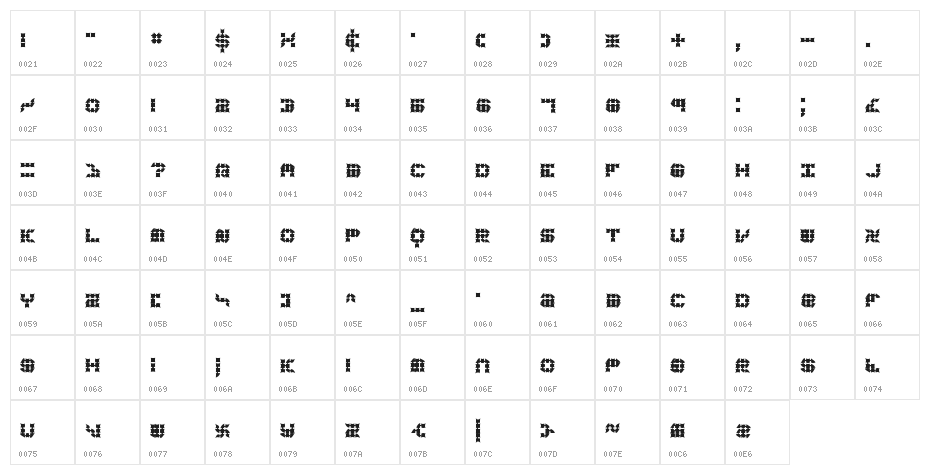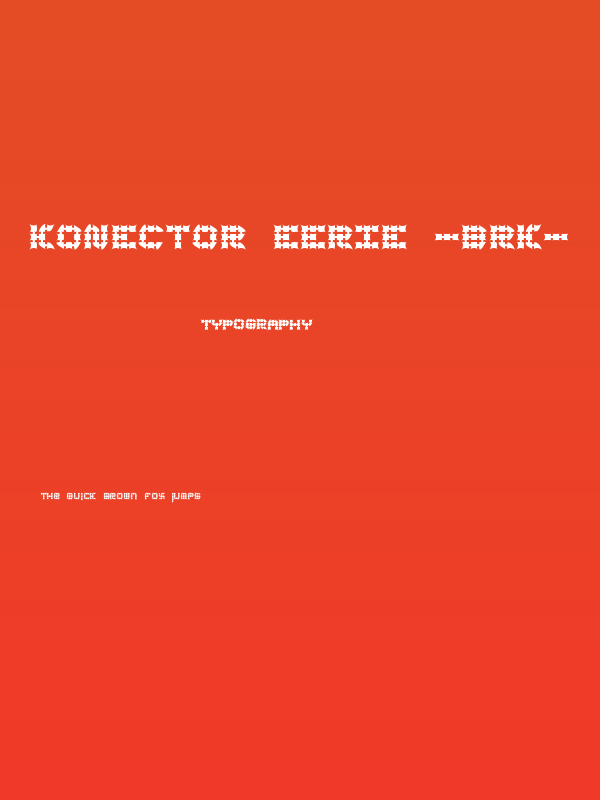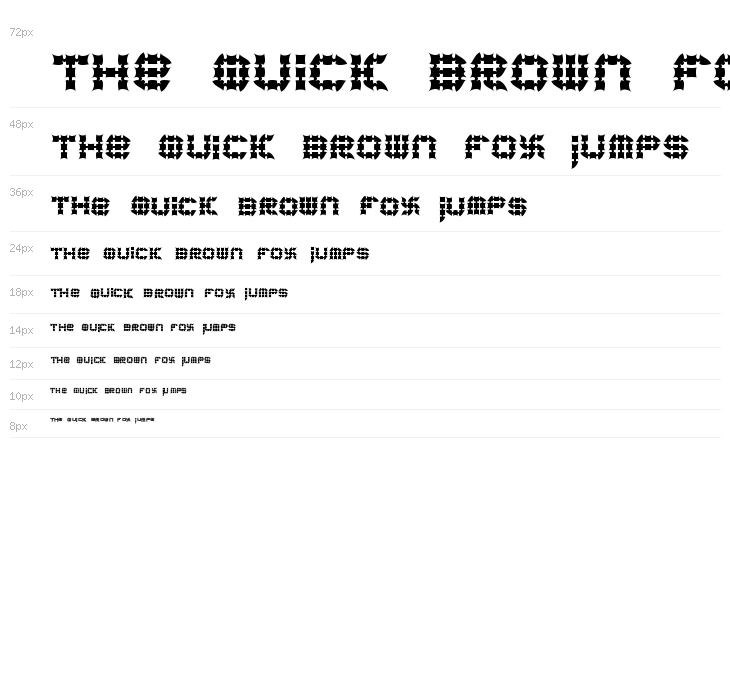
Konector Eerie -BRK- Font
Konector Eerie -BRK- Description
This font features a unique and striking design with a highly decorative style. Each character is composed of intricate, interconnected shapes that create a bold and eye-catching appearance. The font has a geometric and symmetrical structure, with sharp angles and a consistent pattern throughout. It is designed to stand out and make a statement, making it ideal for creative and artistic projects. The uppercase and lowercase letters, as well as numbers and special characters, all maintain this cohesive and elaborate design, ensuring versatility and consistency across different uses.
| Proposed Projects | Ideal for Halloween-themed designs, posters, album covers, and any project requiring a bold, artistic touch. |